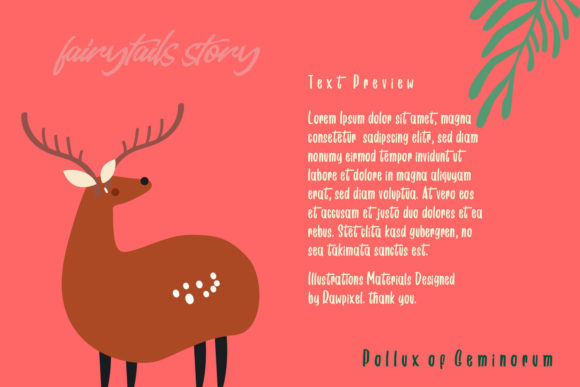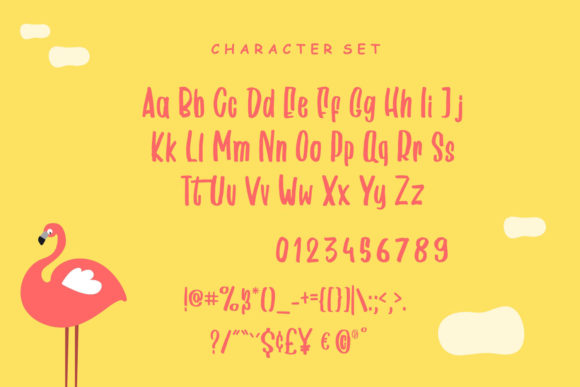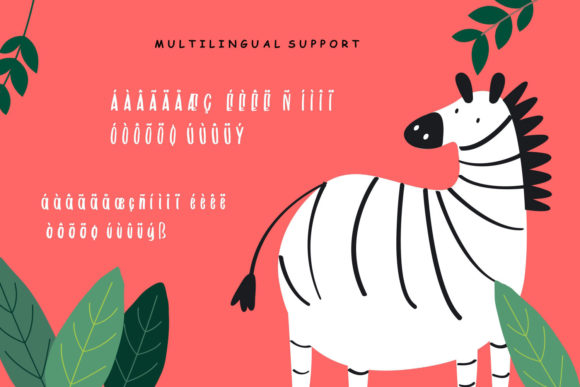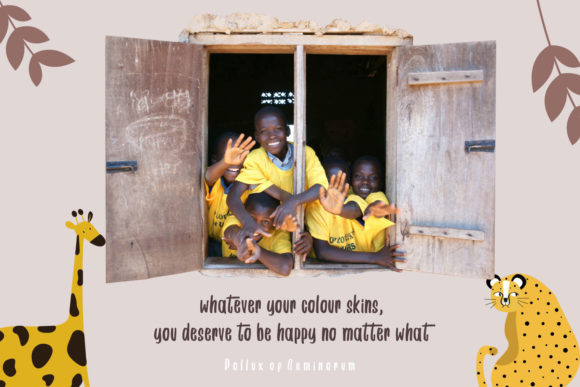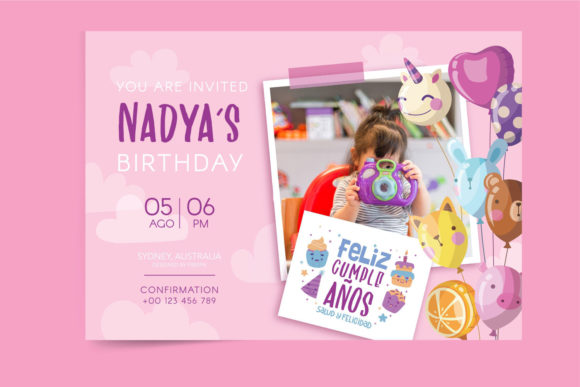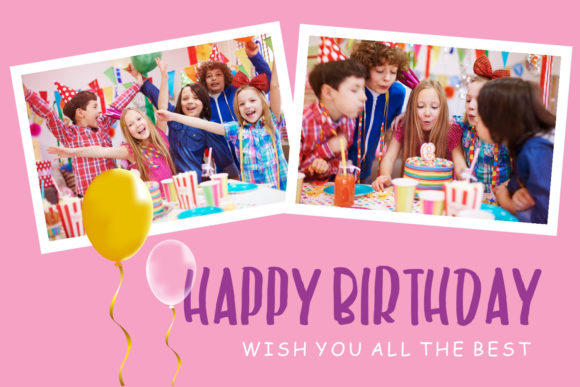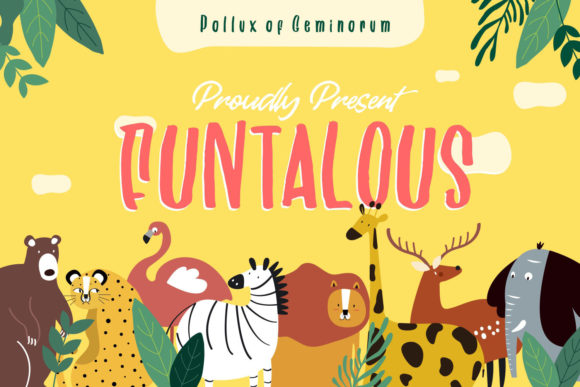
Introducing Funtalous Font: The Ultimate Display Font for Creative Projects
Are you tired of using the same old fonts for your creative projects? Look no further! We’re proud to present Funtalous, a cute display font that’s perfect for adding a touch of fun and personality to your designs. In this article, we’ll dive into the features and benefits of Funtalous, and explore how you can use it to take your designs to the next level.
What is Funtalous Font?
Funtalous is a display font designed specifically for creative projects that require a playful and eye-catching touch. This font is perfect for designers, crafters, and anyone looking to add some fun and personality to their work. With its unique and quirky design, Funtalous is sure to make your projects stand out from the crowd.
Key Features of Funtalous Font
- Cute and Playful Design: Funtalous features a cute and playful design that’s perfect for fun and creative projects.
- Display Font: This font is specifically designed as a display font, making it perfect for headlines, titles, and short text.
- Multipurpose: Funtalous can be used for a variety of projects, including logos, invitations, banners, social media graphics, posters, and more.
- Easily Readable: Despite its playful design, Funtalous is easily readable, making it perfect for both digital and print projects.
Use Cases for Funtalous Font
So, how can you use Funtalous in your creative projects? Here are some ideas to get you started:
- Logos: Add a touch of fun and personality to your logo with Funtalous.
- Invitations: Create playful and eye-catching invitations for parties, events, and more.
- Banners: Use Funtalous to create fun and colorful banners for websites, social media, or print projects.
- Social Media Graphics: Add some personality to your social media graphics with Funtalous.
- Posters: Create eye-catching posters for events, promotions, or advertisements.
Benefits of Using Funtalous Font
So, why should you choose Funtalous for your creative projects? Here are some benefits of using this font:
- Unique Design: Funtalous features a unique and quirky design that will make your projects stand out.
- Time-Saving: With Funtalous, you can create professional-looking designs in no time.
- Versatile: This font can be used for a variety of projects, making it a great addition to your font library.
Tips for Using Funtalous Font
Here are some tips for getting the most out of Funtalous:
- Experiment with Colors: Funtalous looks great in a variety of colors, so don’t be afraid to experiment.
- Pair with Other Fonts: Try pairing Funtalous with other fonts to create a unique and interesting design.
- Use for Headlines: Funtalous is perfect for headlines and titles, so use it to add some personality to your text.
| Font Name | Funtalous Font |
| Author | Pollux of Geminorum |
In conclusion, Funtalous is a fun and playful display font that’s perfect for creative projects. With its unique design, versatility, and ease of use, Funtalous is a great addition to any designer’s font library. Whether you’re a seasoned designer or just starting out, Funtalous is sure to bring a touch of fun and personality to your designs.